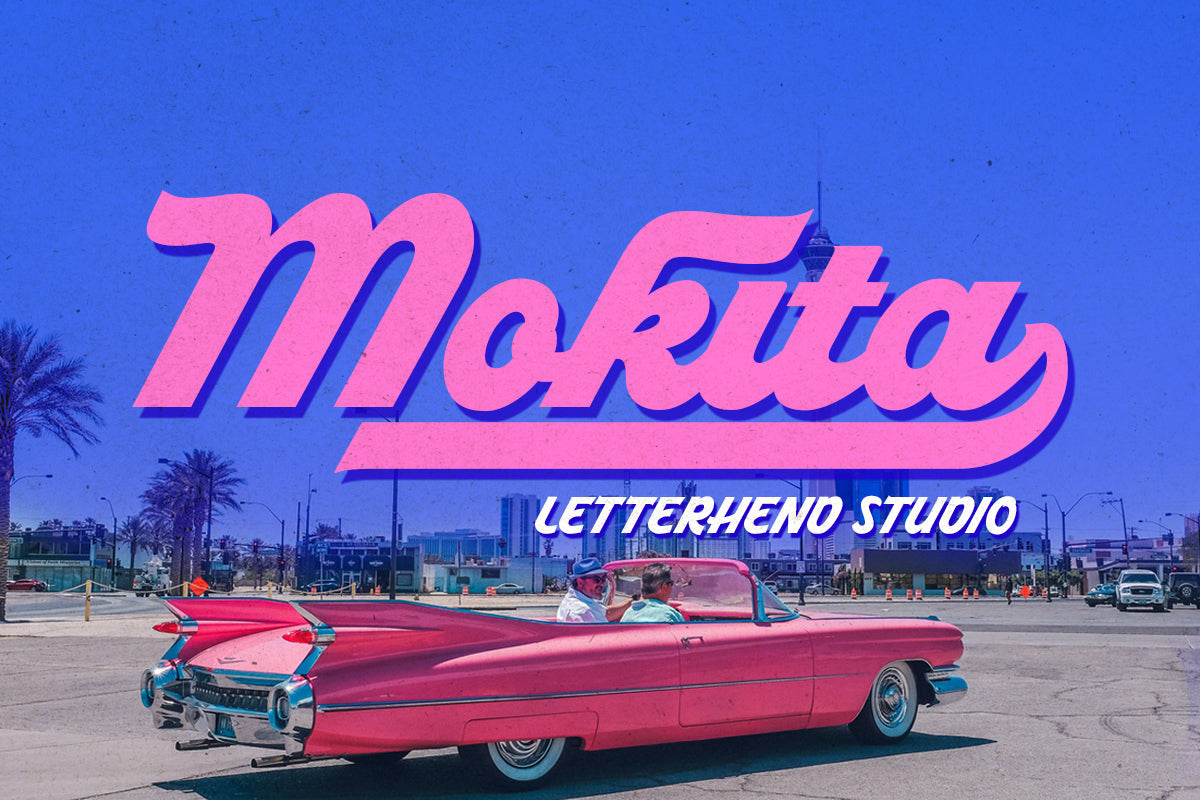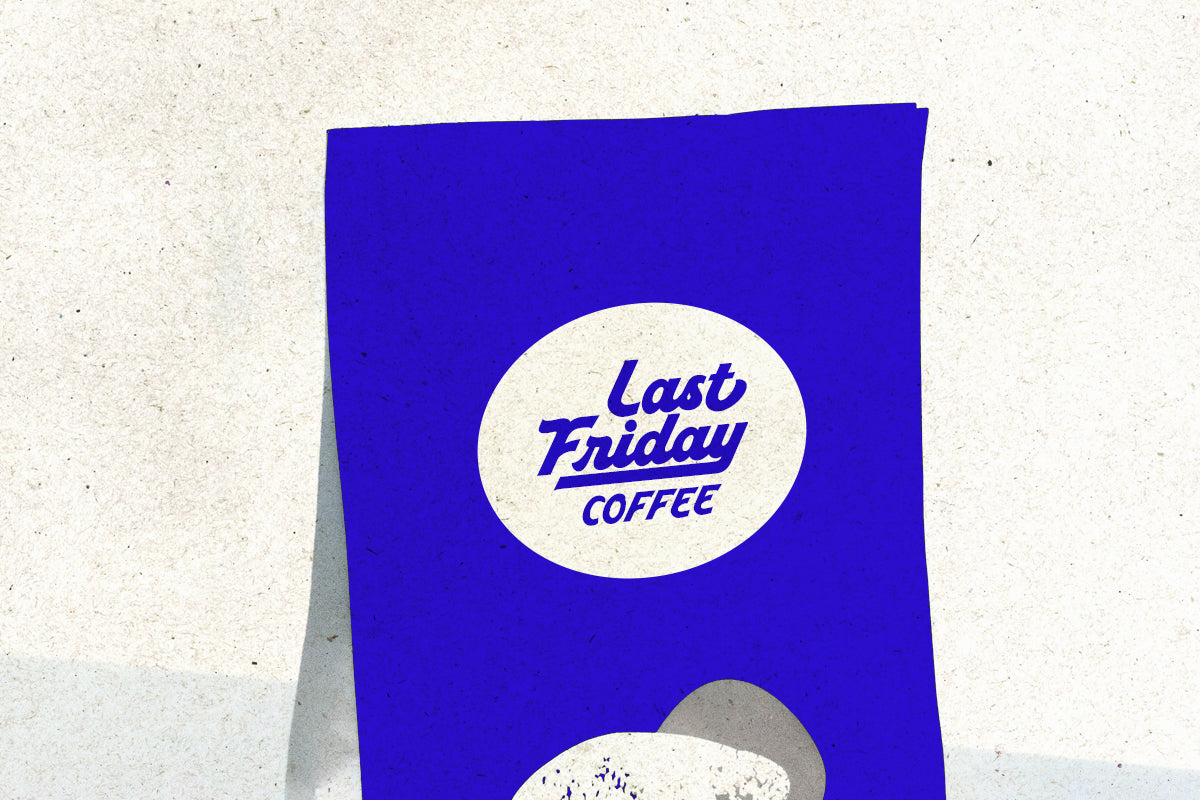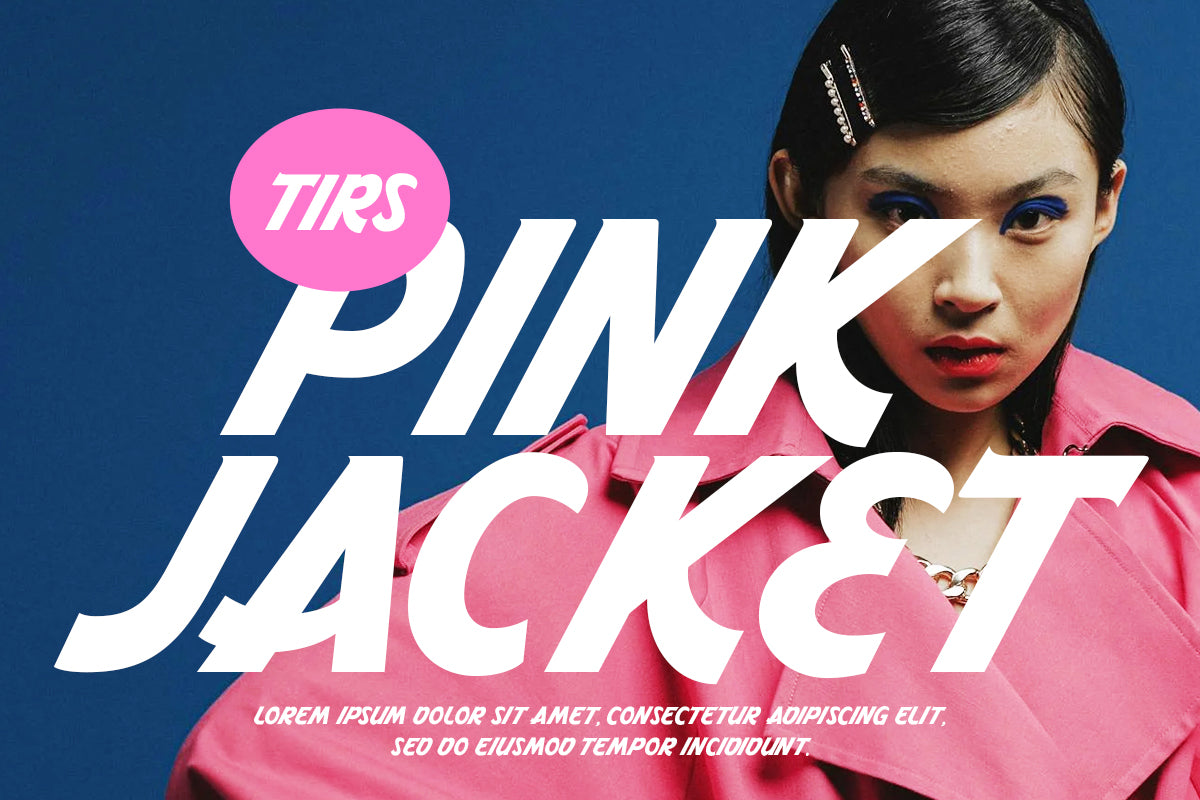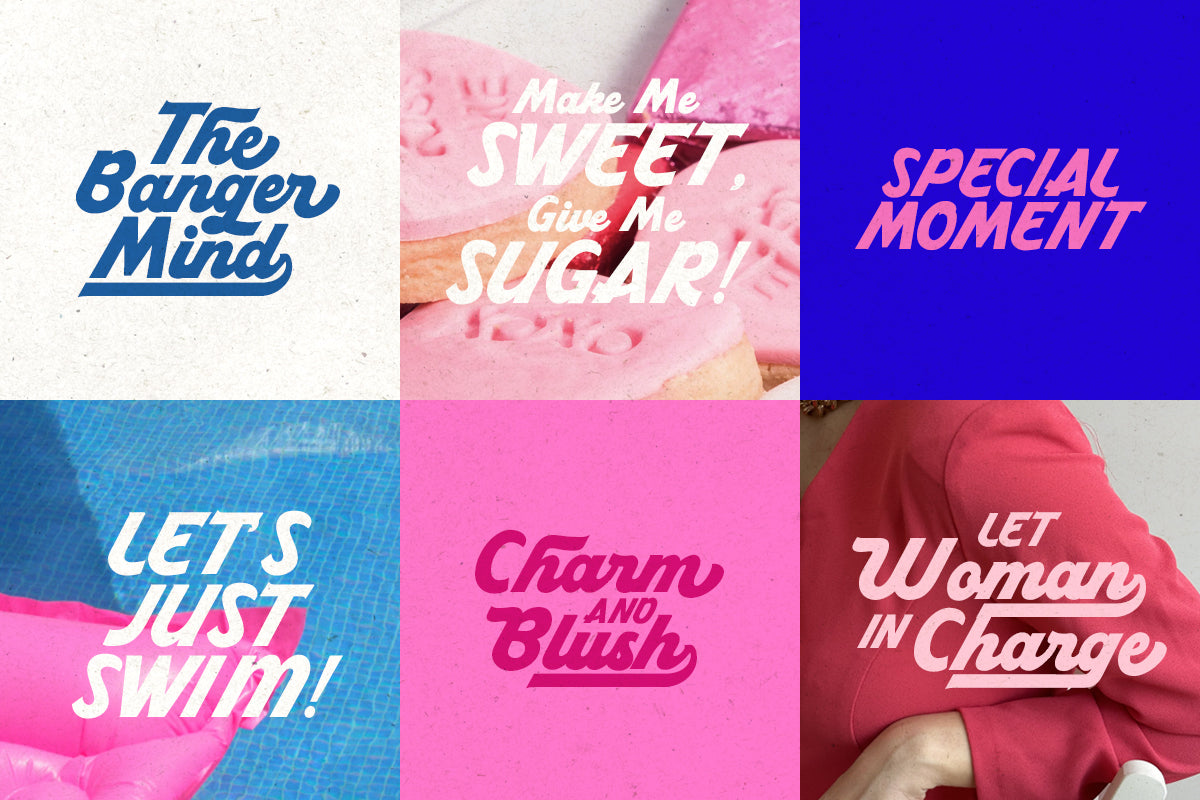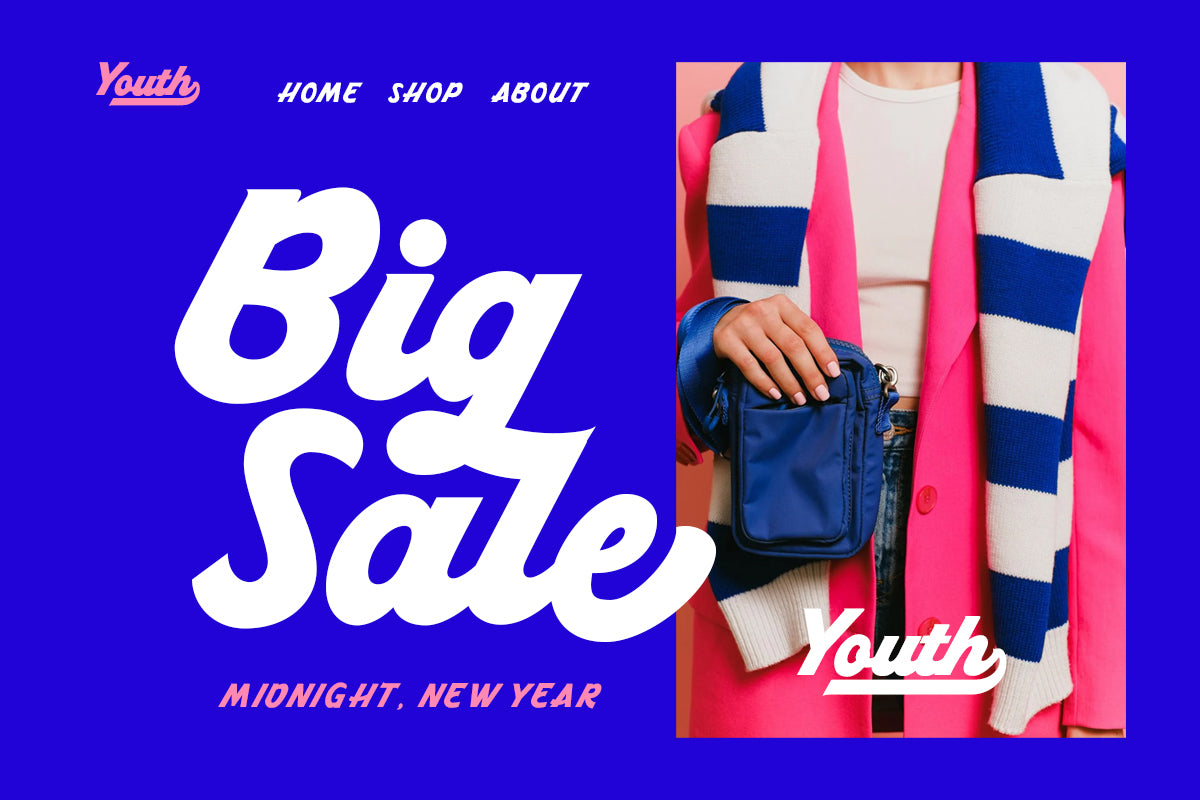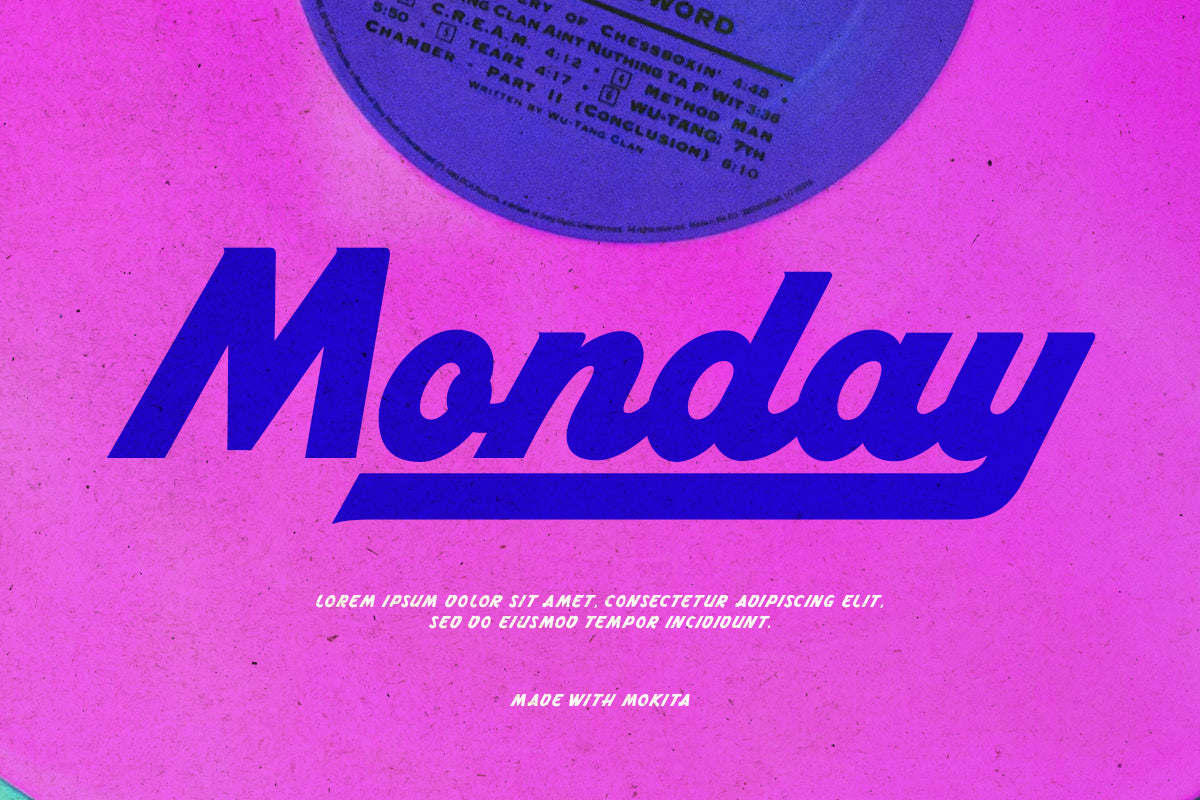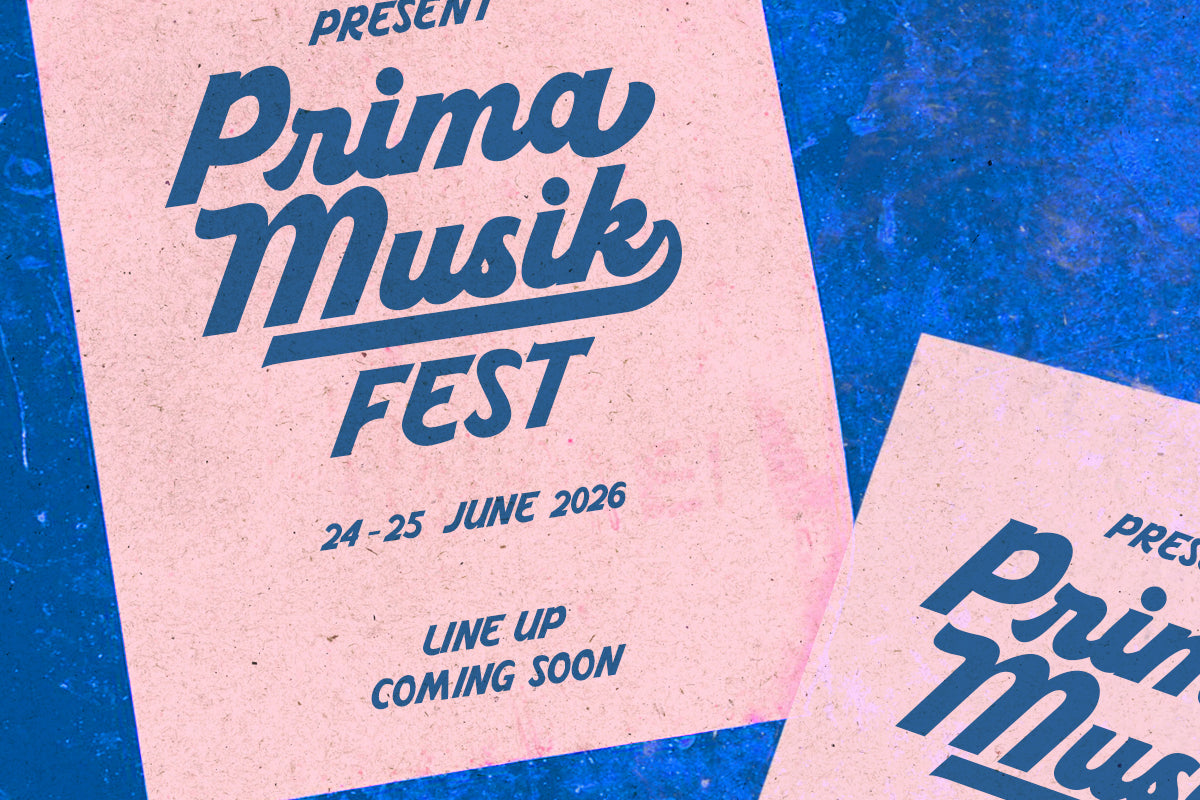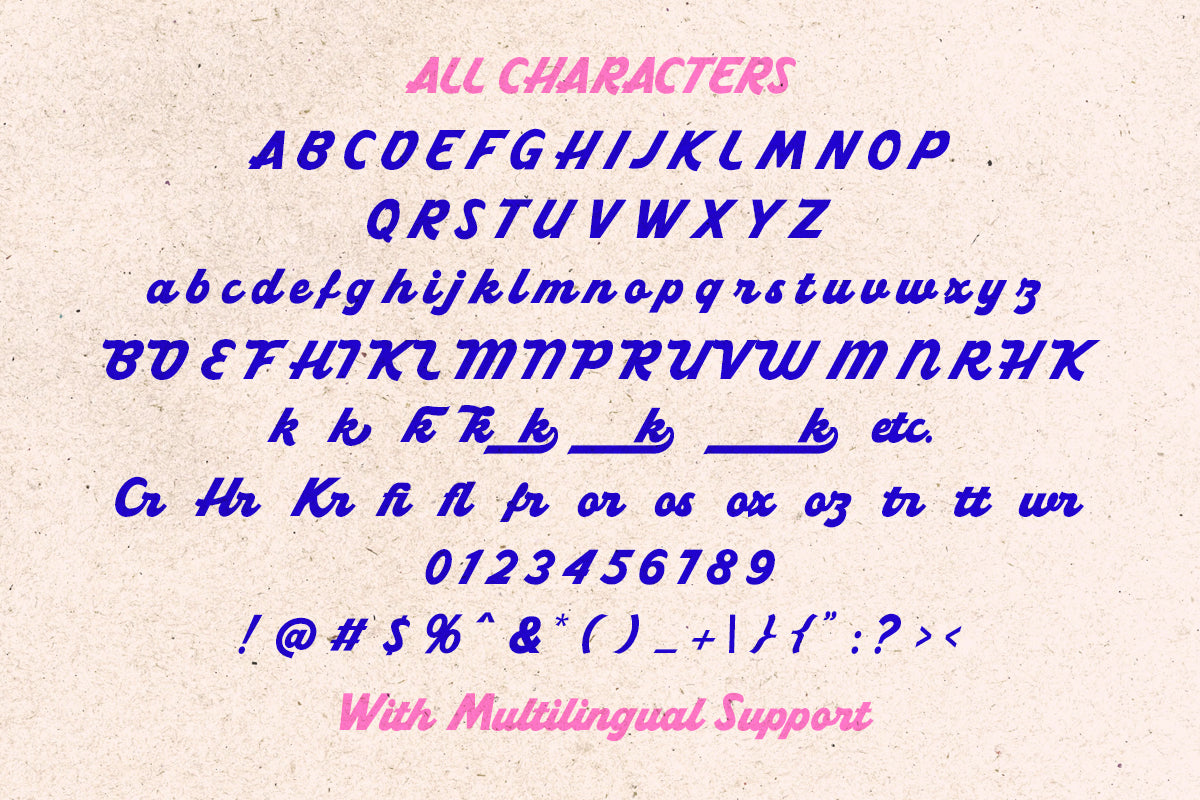
This is Mokita—a bold script font with a retro twist that captures the essence of 1960s design. Featuring an easy-to-use extruded version, it’s perfect for creating striking retro effects. Whether used for logos, packaging, invitations, or any creative project, Mokita adds a fresh and modern touch with a nostalgic charm.
Uppercase & lowercase
Numbers and punctuation
Alternates & Ligatures
Multilingual Support